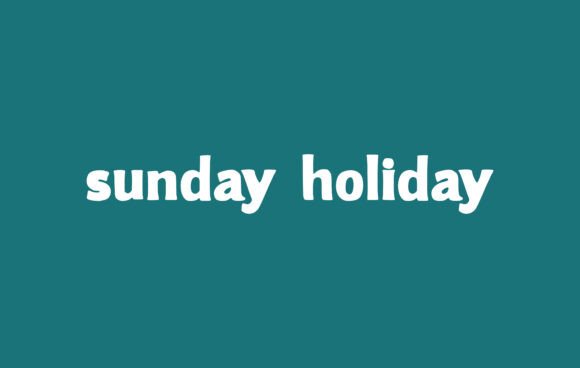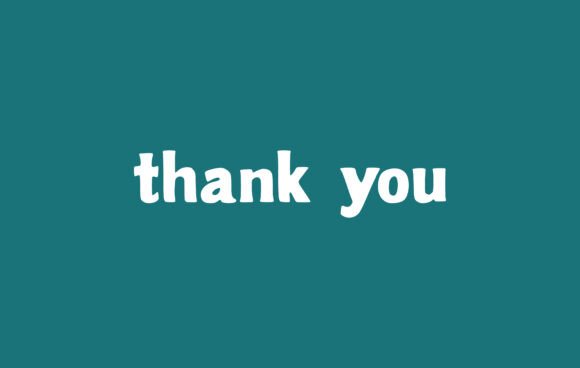
Discover the Charm of Adam Font: Elevate Your Designs with a Romantic Touch
In the world of typography, fonts play a crucial role in bringing creative ideas to life. Among the numerous fonts available, Adam Font stands out for its authentic handwritten style and romantic touch. Designed to capture the hearts of designers and crafters, Adam Font is an excellent choice for those seeking to add a personal and elegant flair to their projects. In this article, we’ll explore the features, benefits, and uses of Adam Font, and why it’s becoming a favorite among creative professionals.
What is Adam Font?
Adam Font is a beautifully crafted handwritten font that exudes a sense of romance and sophistication. Its authentic feel makes it perfect for designs that require a personal touch. Whether you’re working on a magazine headline, social media post, branding material, wedding invitation, or card, Adam Font is sure to impress. Its legibility and versatility make it an excellent choice for both title and body text, allowing you to experiment with different design ideas.
Key Features of Adam Font
- Authentic Handwritten Style: Adam Font boasts a genuine handwritten look that adds a touch of warmth and personality to your designs.
- Romantic Touch: The font’s elegant and refined feel makes it perfect for designs that require a romantic or sophisticated tone.
- Legibility: Adam Font is designed to be easily readable, making it suitable for both title and body text.
- Versatility: This font can be used for a wide range of design projects, including magazine headlines, social media posts, branding materials, wedding invitations, cards, and more.
Benefits of Using Adam Font
So, why choose Adam Font for your design projects? Here are some benefits that make it an excellent addition to your font collection:
- Emotional Connection: The handwritten style of Adam Font creates an emotional connection with your audience, making your designs more relatable and engaging.
- Unique Identity: With Adam Font, you can give your designs a unique identity that sets them apart from others.
- Time-Saving: The font’s legibility and versatility save you time and effort in choosing separate fonts for titles and body text.
- Professional Look: Adam Font’s elegant and refined feel gives your designs a professional look that’s sure to impress.
Uses of Adam Font
Adam Font is an incredibly versatile font that can be used for a wide range of design projects. Here are some ideas to get you started:
- Magazine Headlines: Use Adam Font to create eye-catching headlines that grab the reader’s attention.
- Social Media Posts: Add a personal touch to your social media posts with Adam Font’s elegant and refined feel.
- Branding Materials: Use Adam Font to create a unique identity for your brand that sets you apart from others.
- Wedding Invitations: Add a romantic touch to your wedding invitations with Adam Font’s beautiful handwritten style.
- Cards and Stationery: Use Adam Font to create beautiful cards and stationery that make a lasting impression.
In conclusion, Adam Font is an exceptional handwritten font that offers a unique blend of authenticity, romance, and sophistication. Its versatility, legibility, and emotional connection make it an excellent choice for designers and crafters seeking to elevate their designs. Whether you’re working on a magazine headline, social media post, branding material, wedding invitation, or card, Adam Font is sure to impress. Add Adam Font to your font collection today and discover a world of creative possibilities!